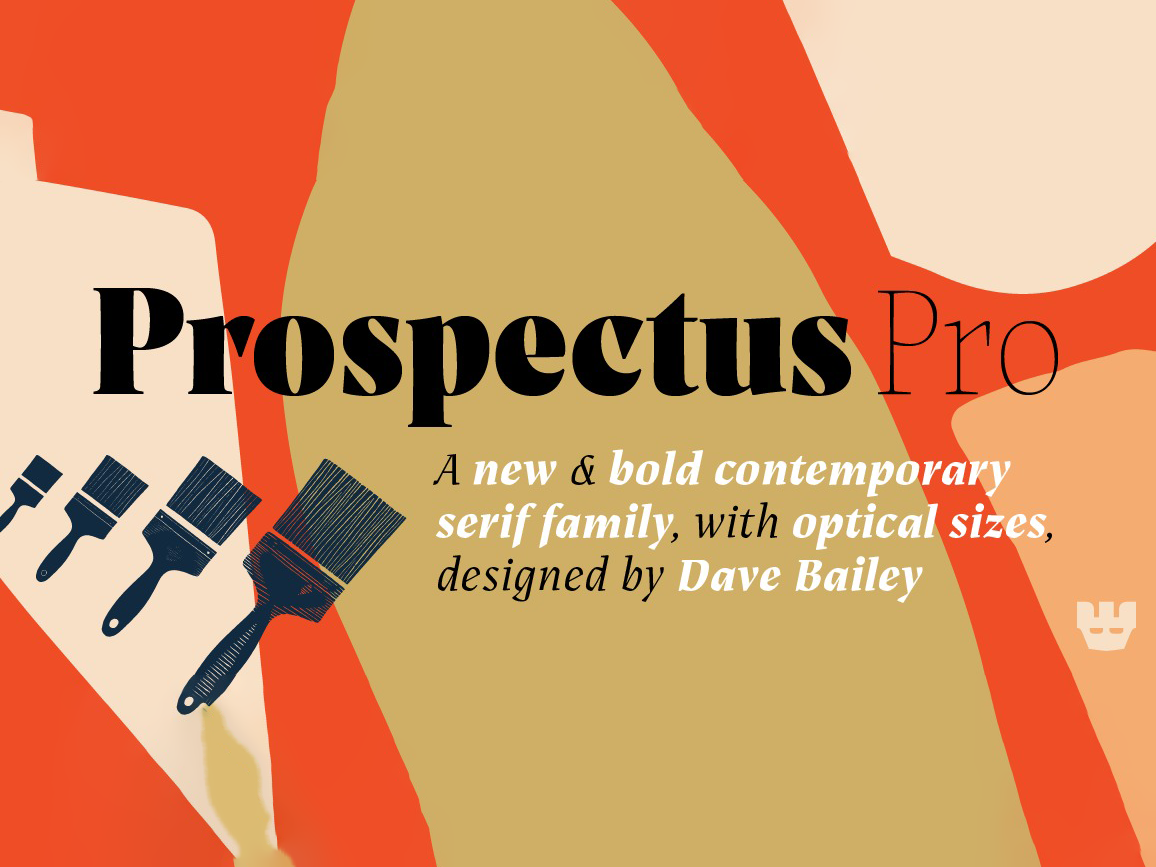
Prospectus Pro Serif Font
This is a modern bold serif typeface in 48 styles, designed by Dave Bailey. It’s a very versatile font. This font is great for using in magazines, Projects and anywhere where you want elegance to be included.